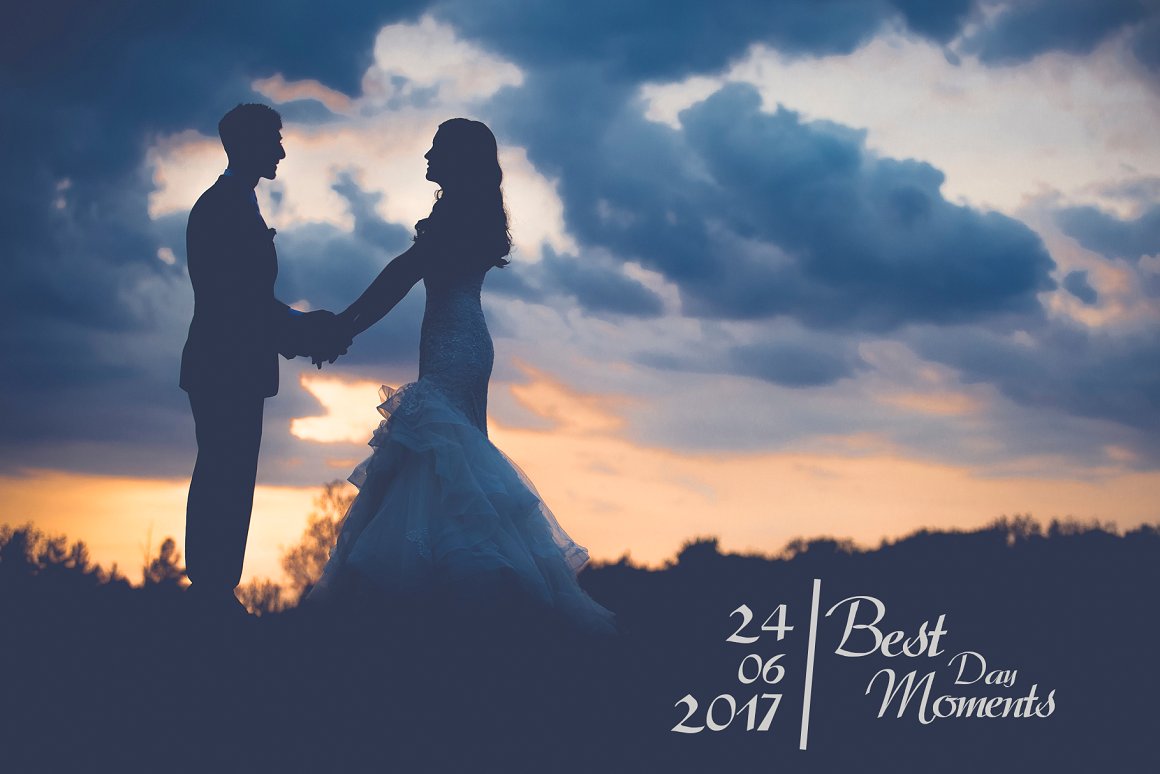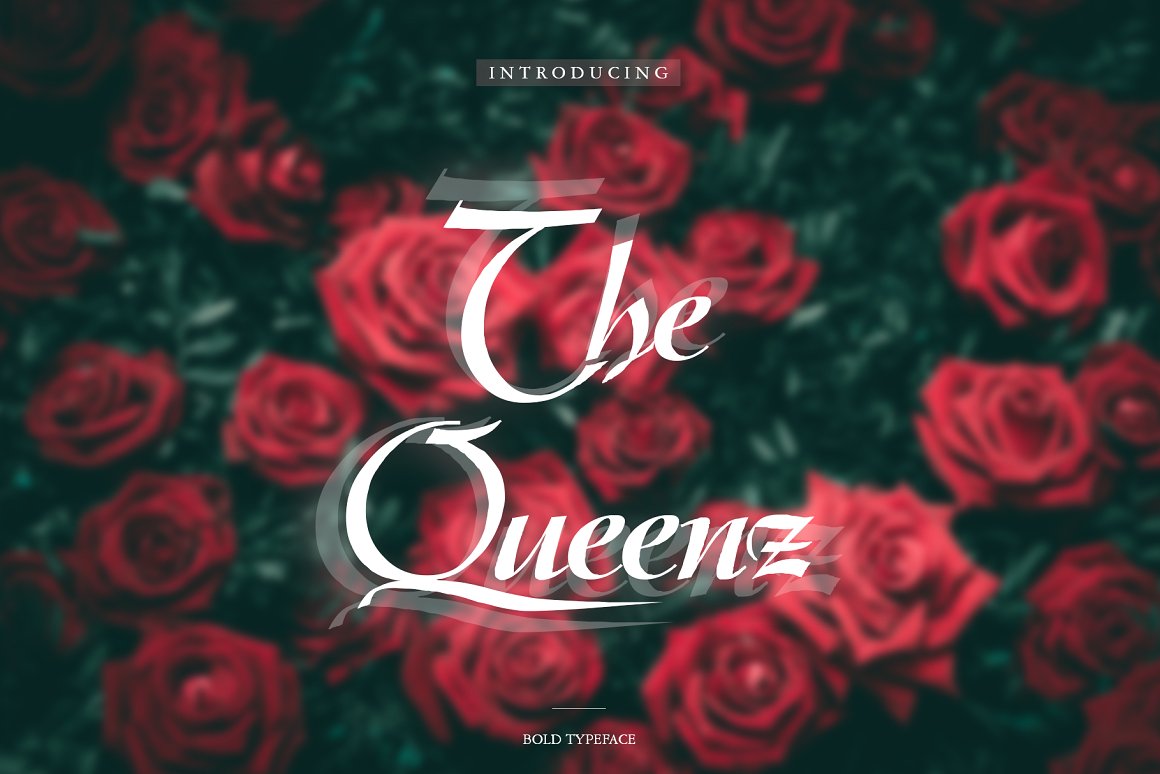
The Queenz Typeface
Font comes with uppercase, lowercase, numerals & symbol. Designed with premium taste and very elegant for Logotype, Letterhead, Poster, Apparel Design, Label, Wedding and etc.
| Designer Name: | Alt Desain |
| Classification: | Calligraphy Fonts, Script Fonts |